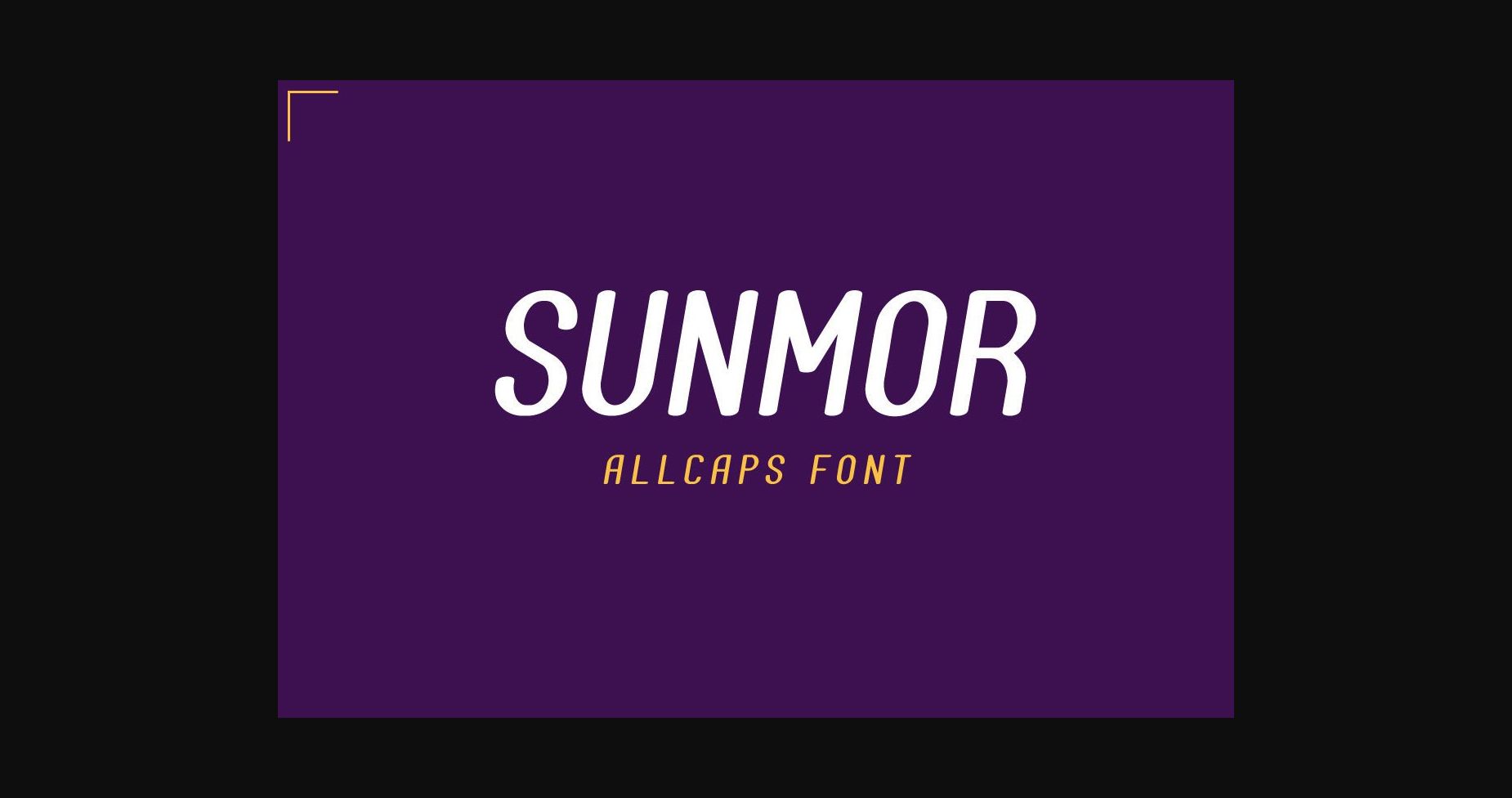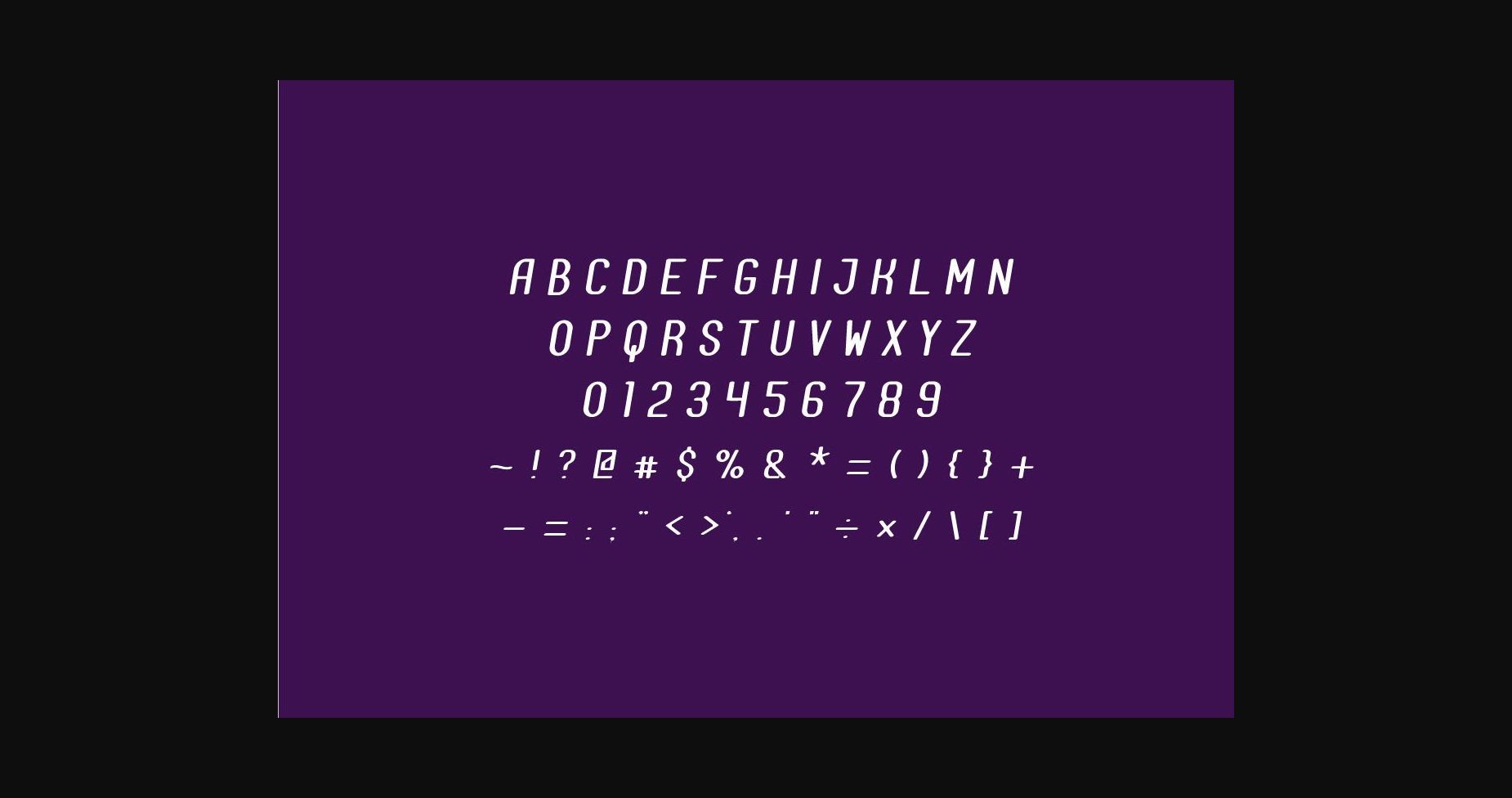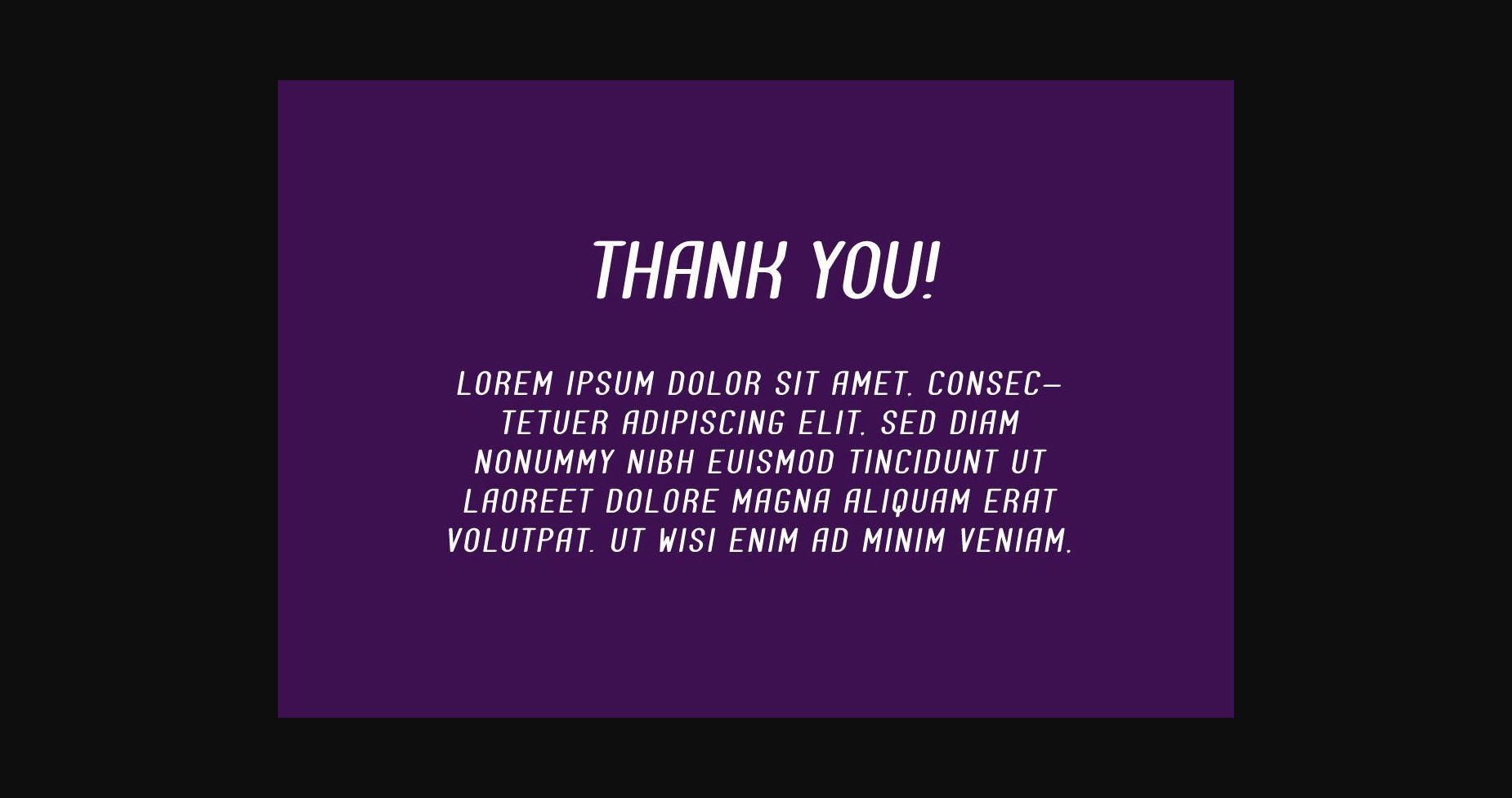
Sunmor Font
About Sunmor Font
Sunmor is a modern, clean, and eye-catching sans serif font ideal for posters, cards, book titles, headlines, news, banners, flyers, stationery, and many more. Add it to your fonts library, and start creating awesome designs with Sunmor!